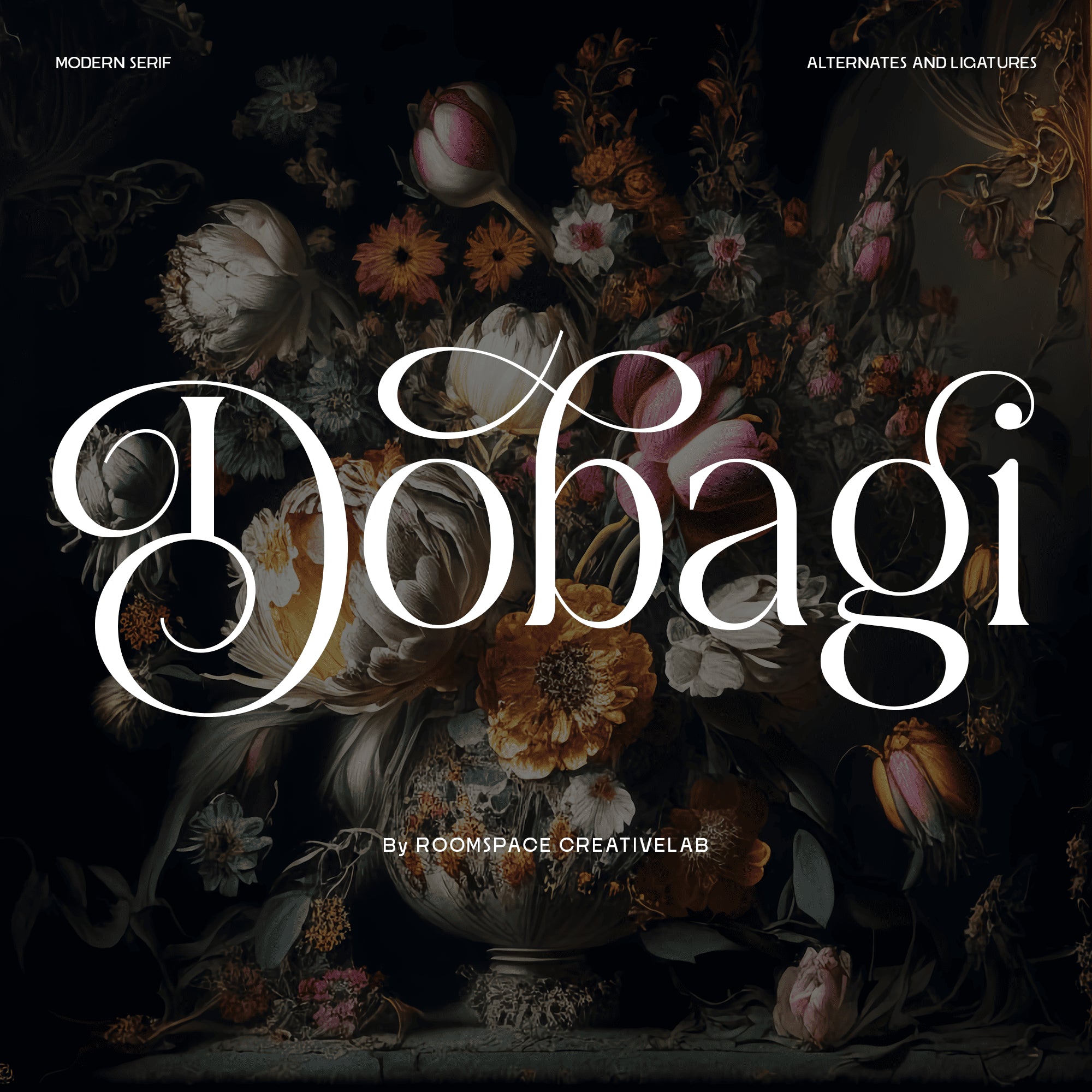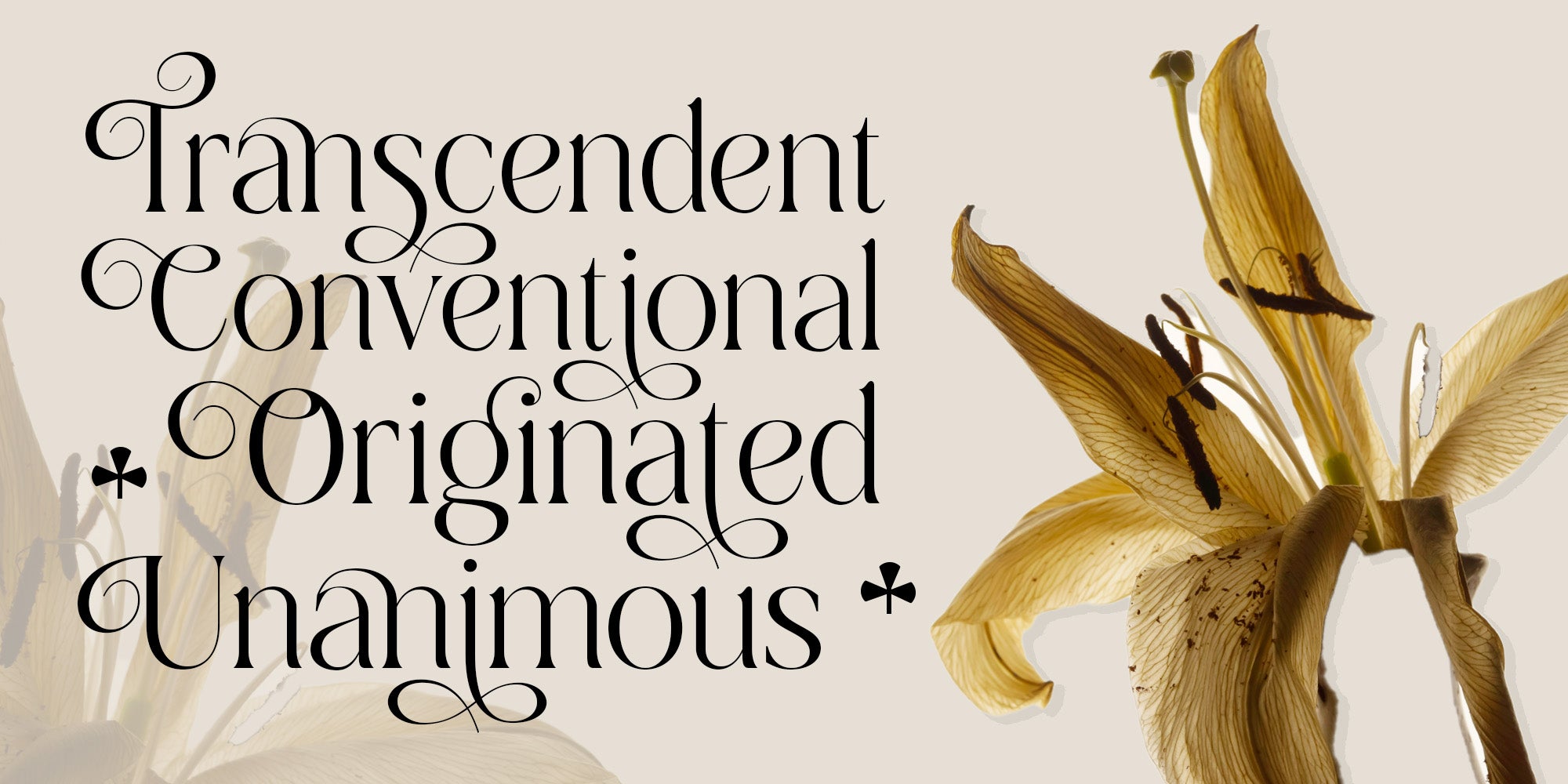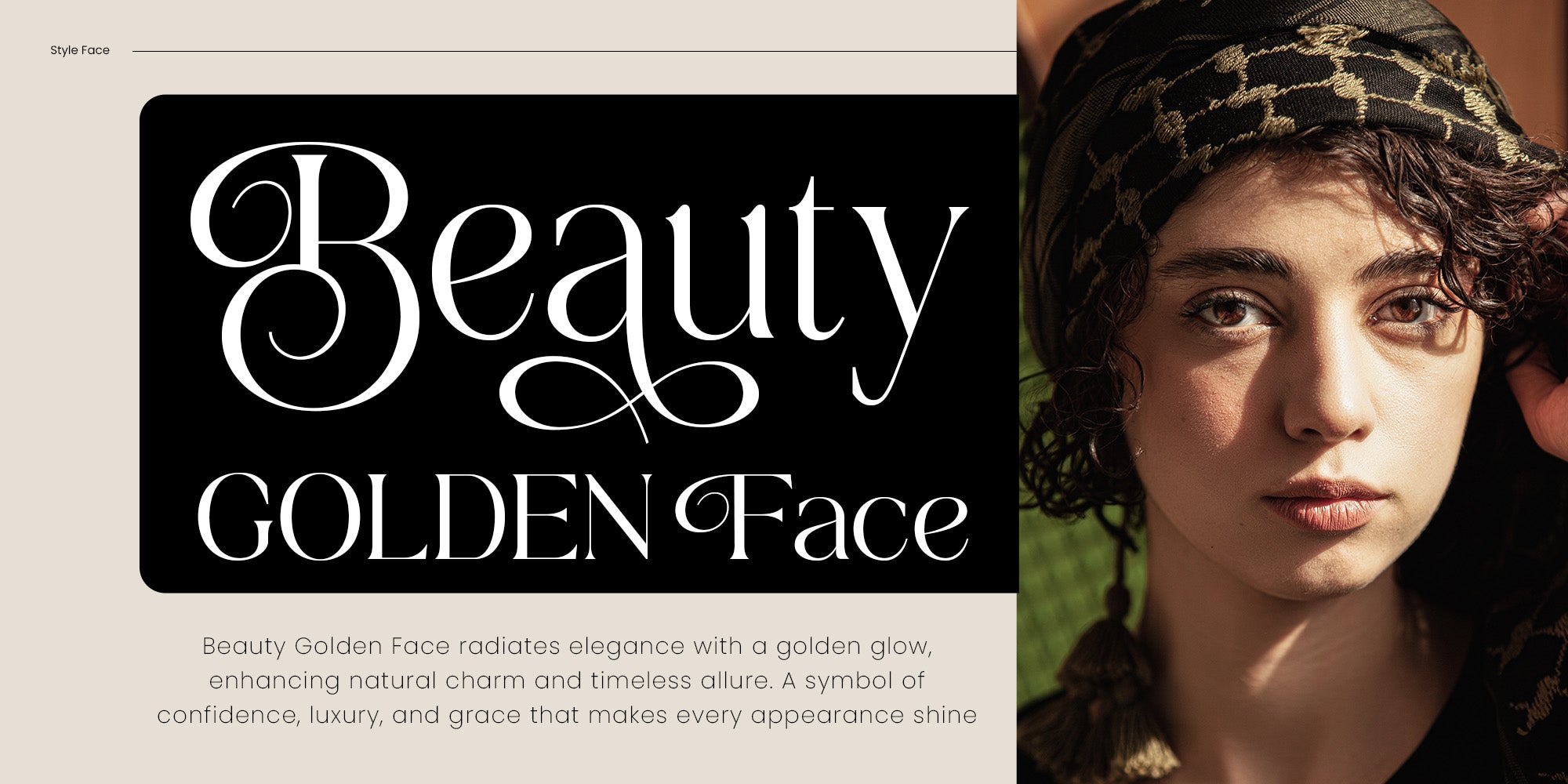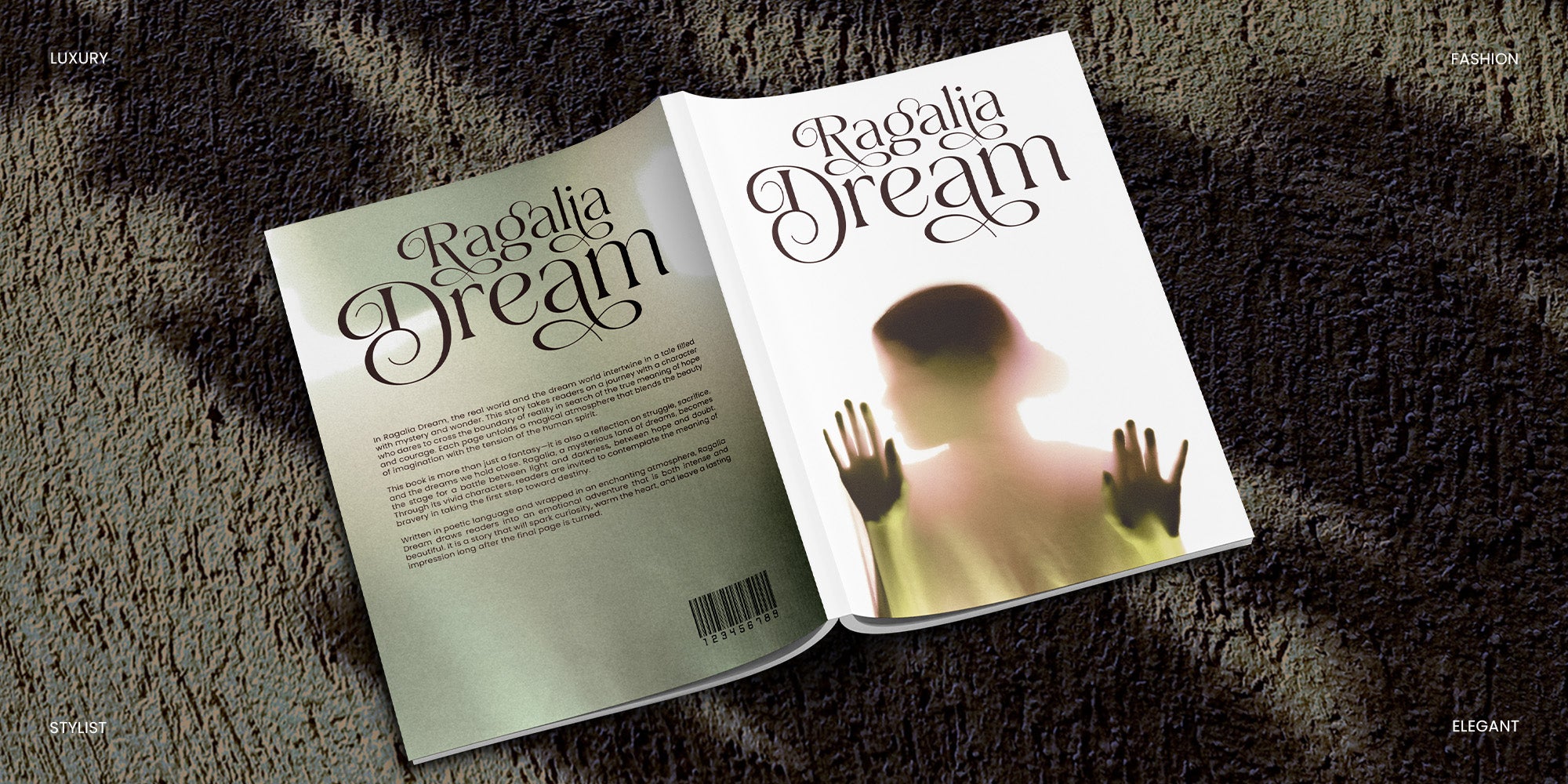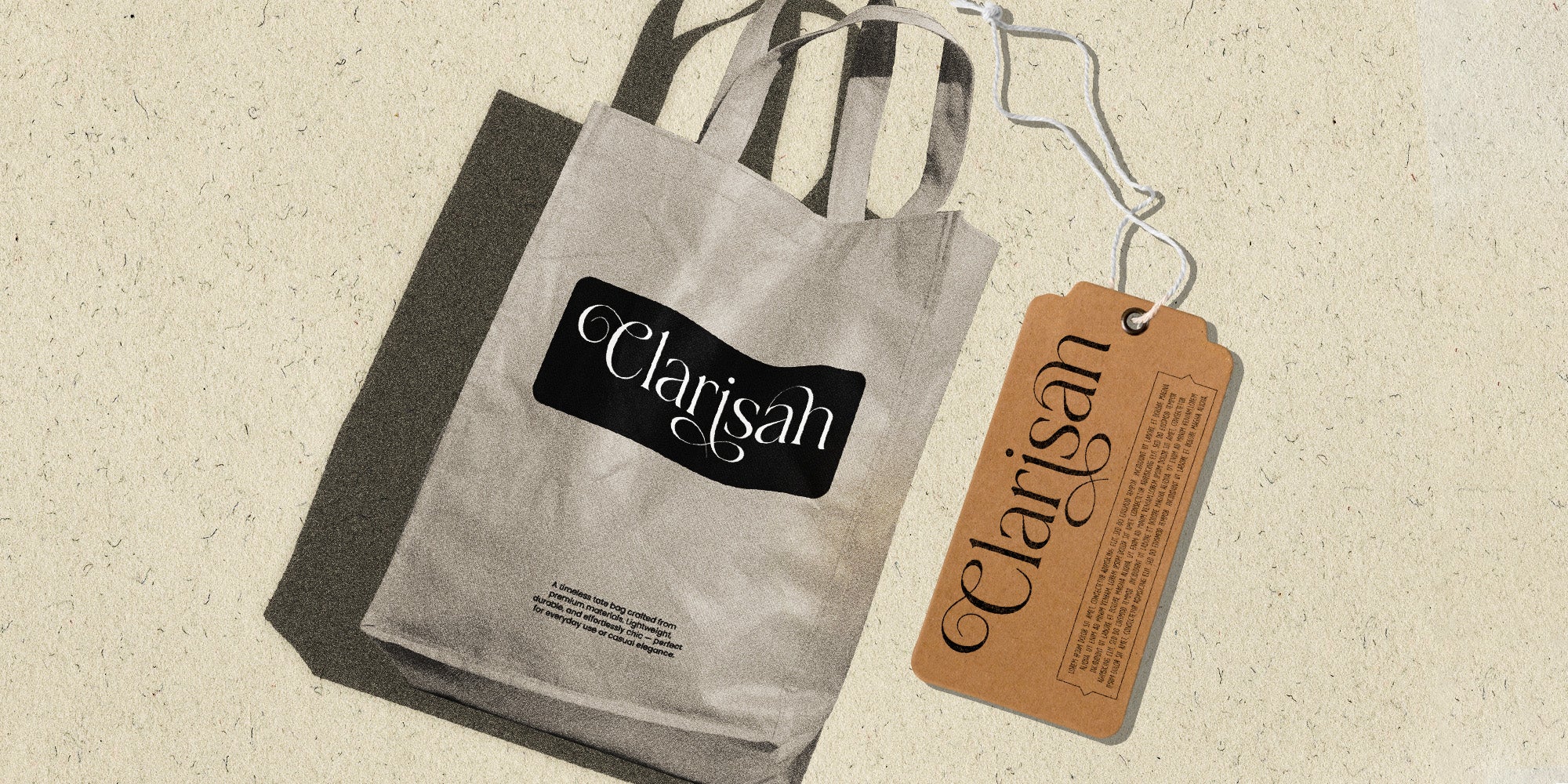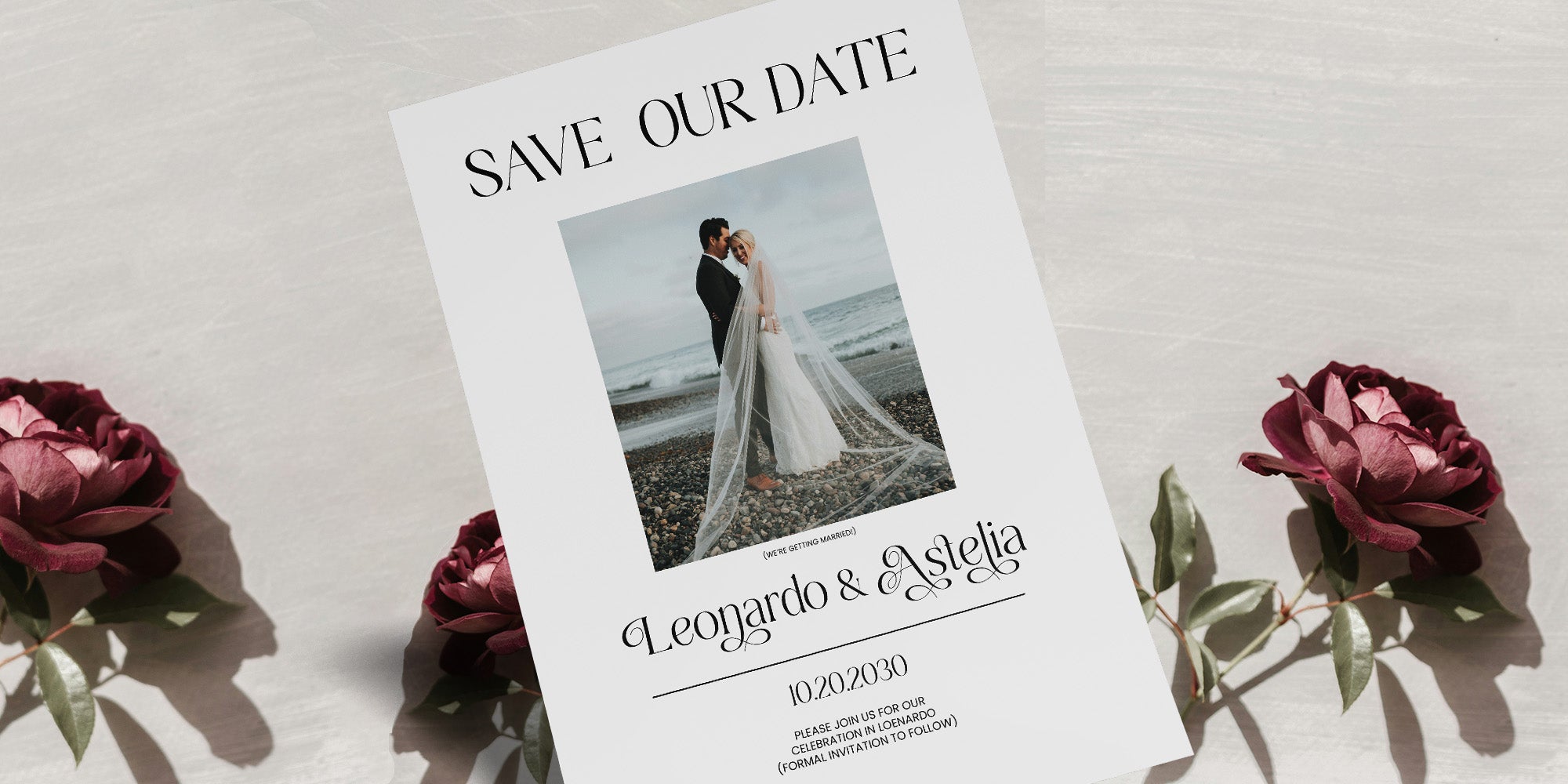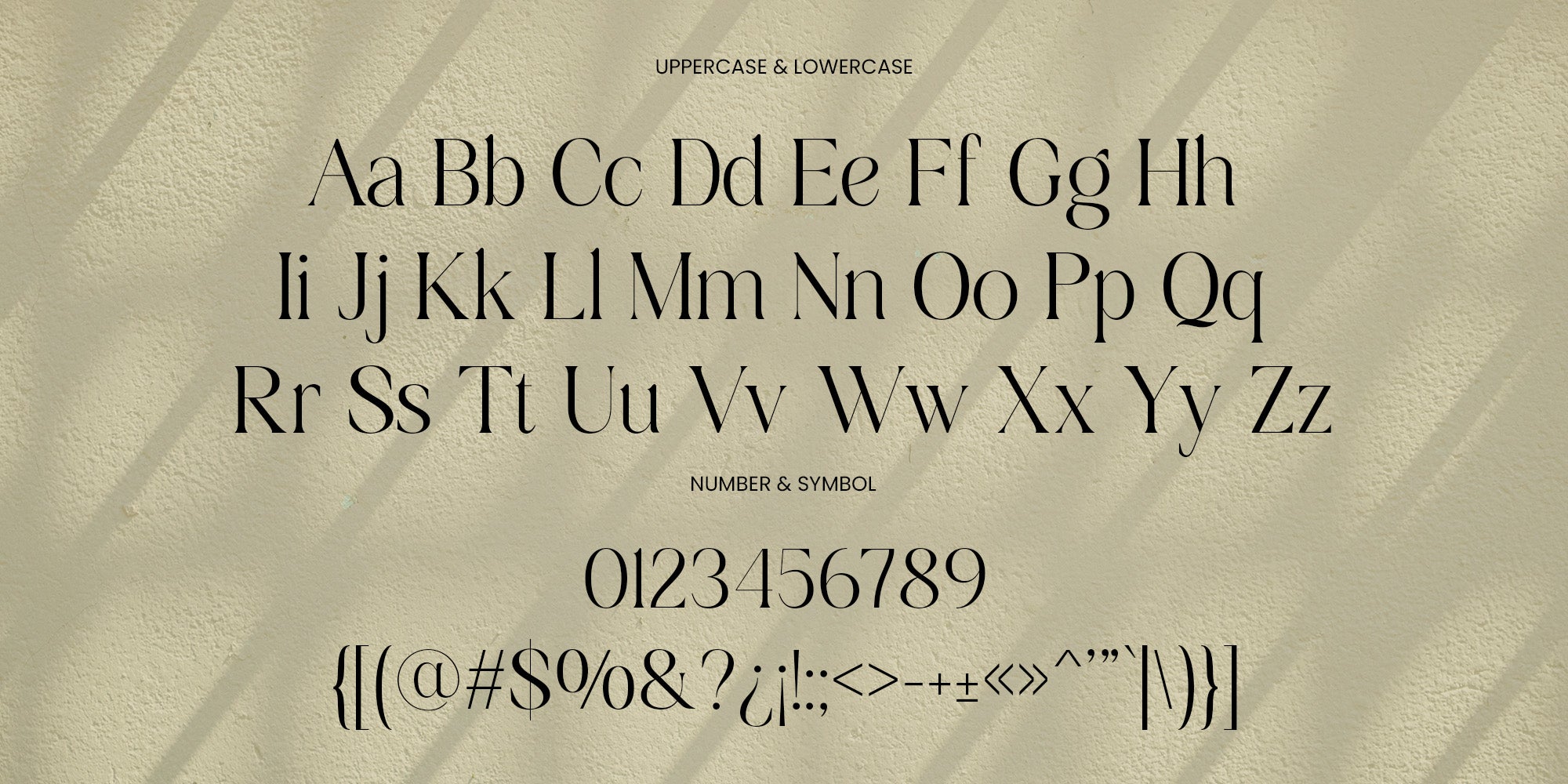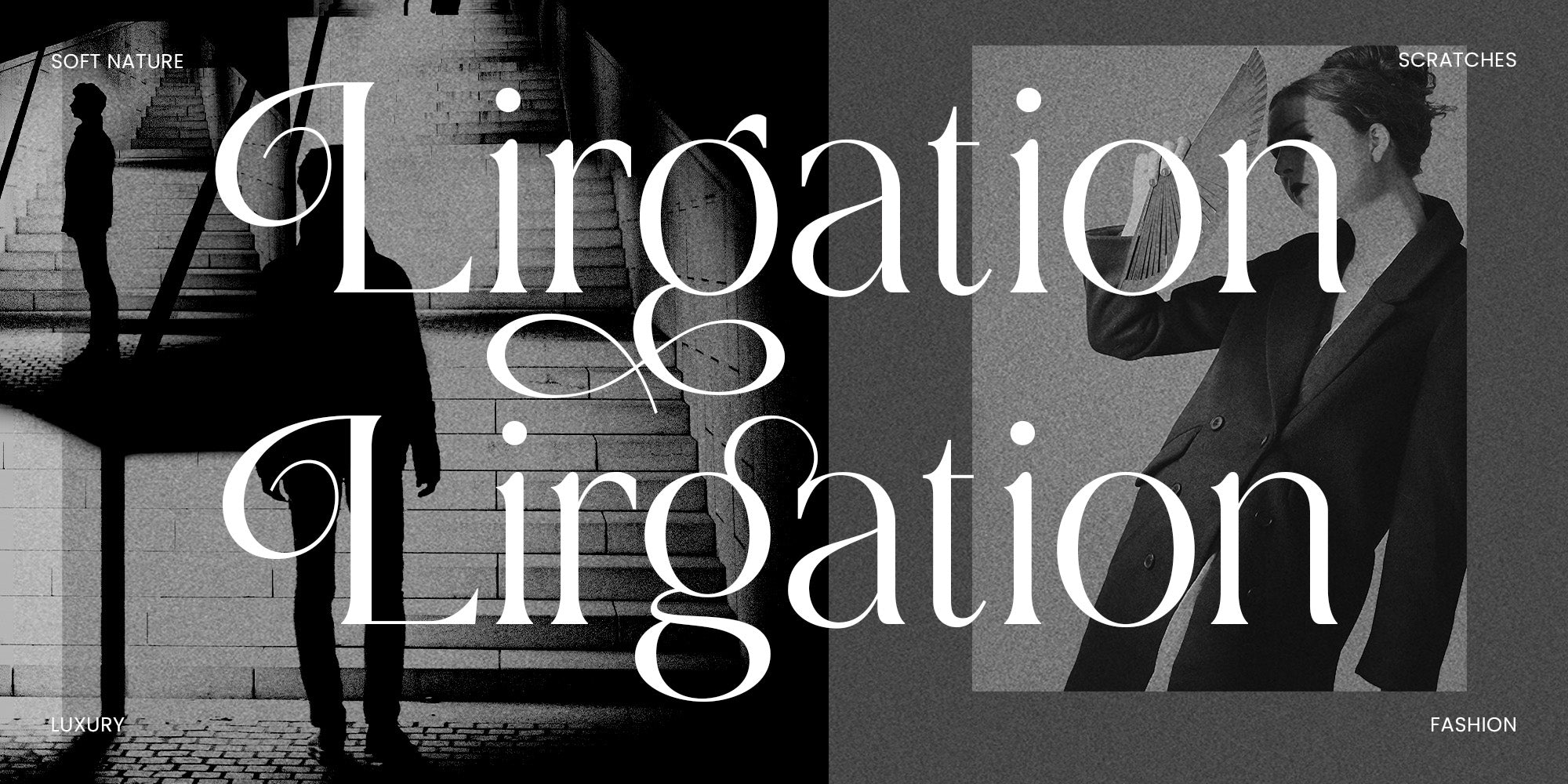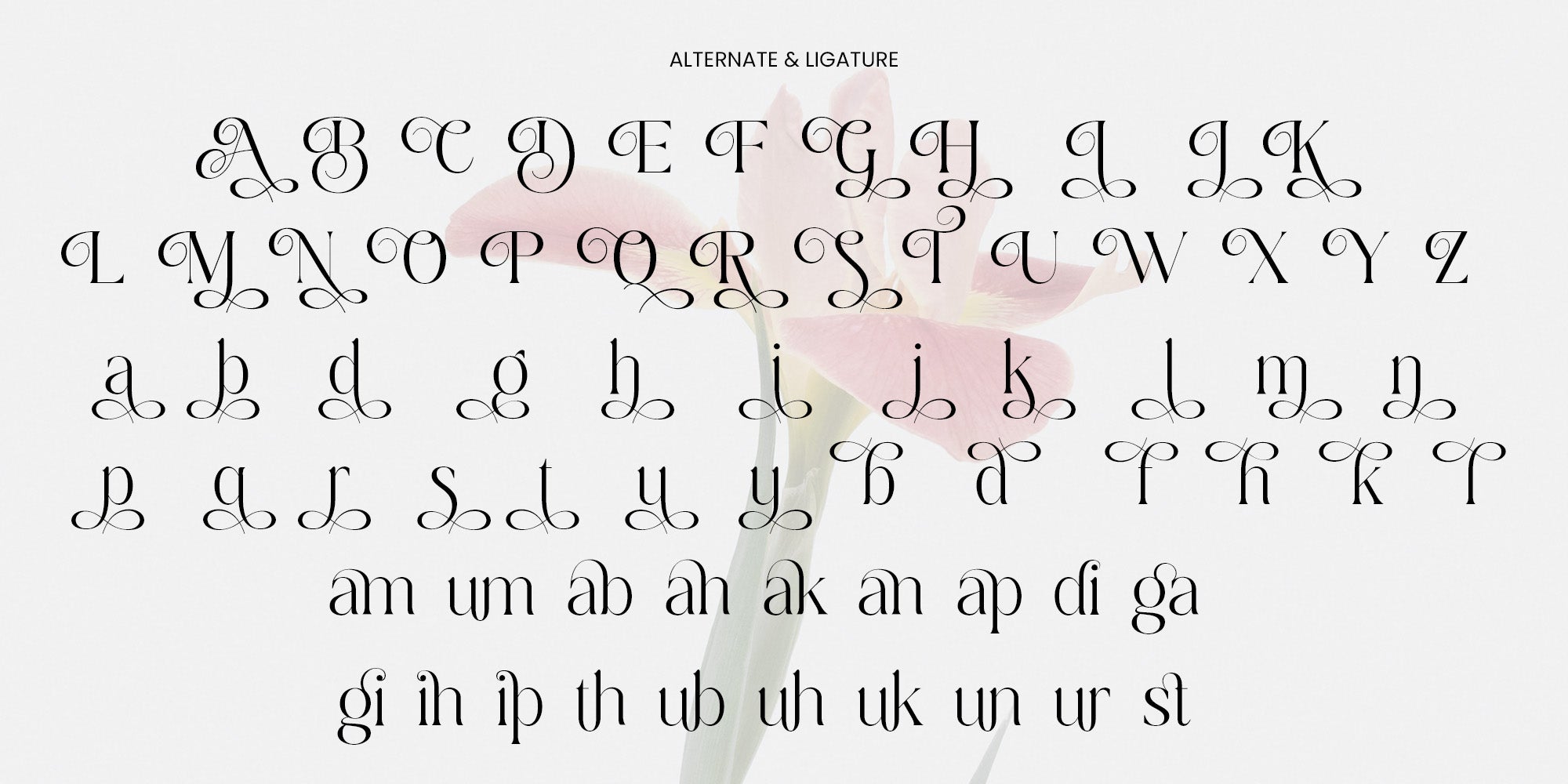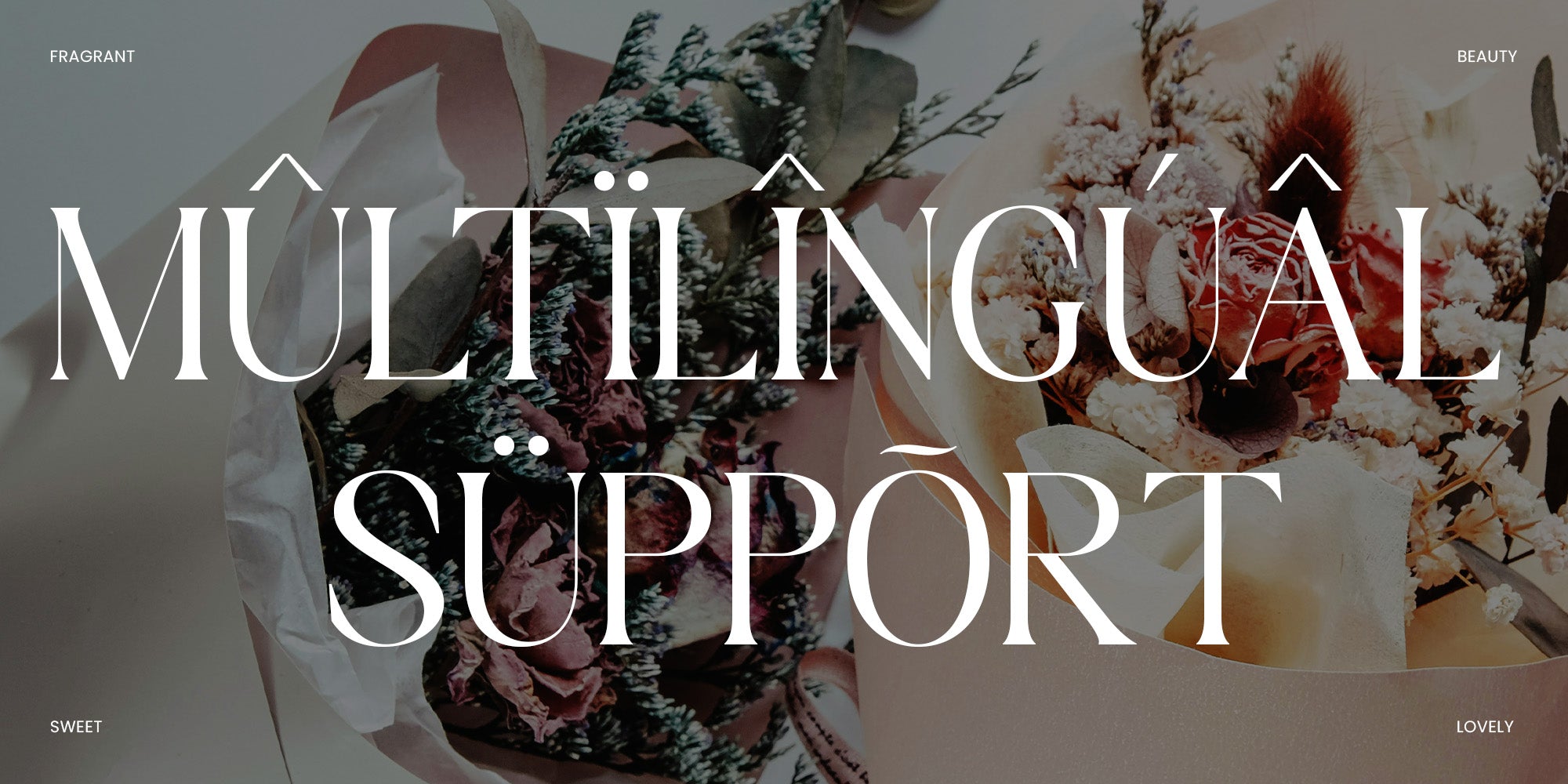
Dobagi – Elegant Modern Serif Font
Dobagi is a modern serif font that combines luxury, elegance, and timeless style with refined curves and bold details. Featuring stylish alternates, smooth ligatures, and perfect kerning, it’s highly versatile and ideal for logo design, branding, packaging, invitations, editorial layouts, and wedding projects. Perfect for both digital and print, Dobagi adds sophistication and a high-end look to every design.
• Regular and Oblique
• Numbers & Punctuation
Dobagi is a modern serif font that features refined curves, bold details, stylish alternates, and smooth ligatures. It includes both Regular and Oblique styles, supports uppercase and lowercase letters, numbers, and punctuation, and is available in OTF, TTF, and WOFF formats, compatible with both PC and Mac for easy installation.